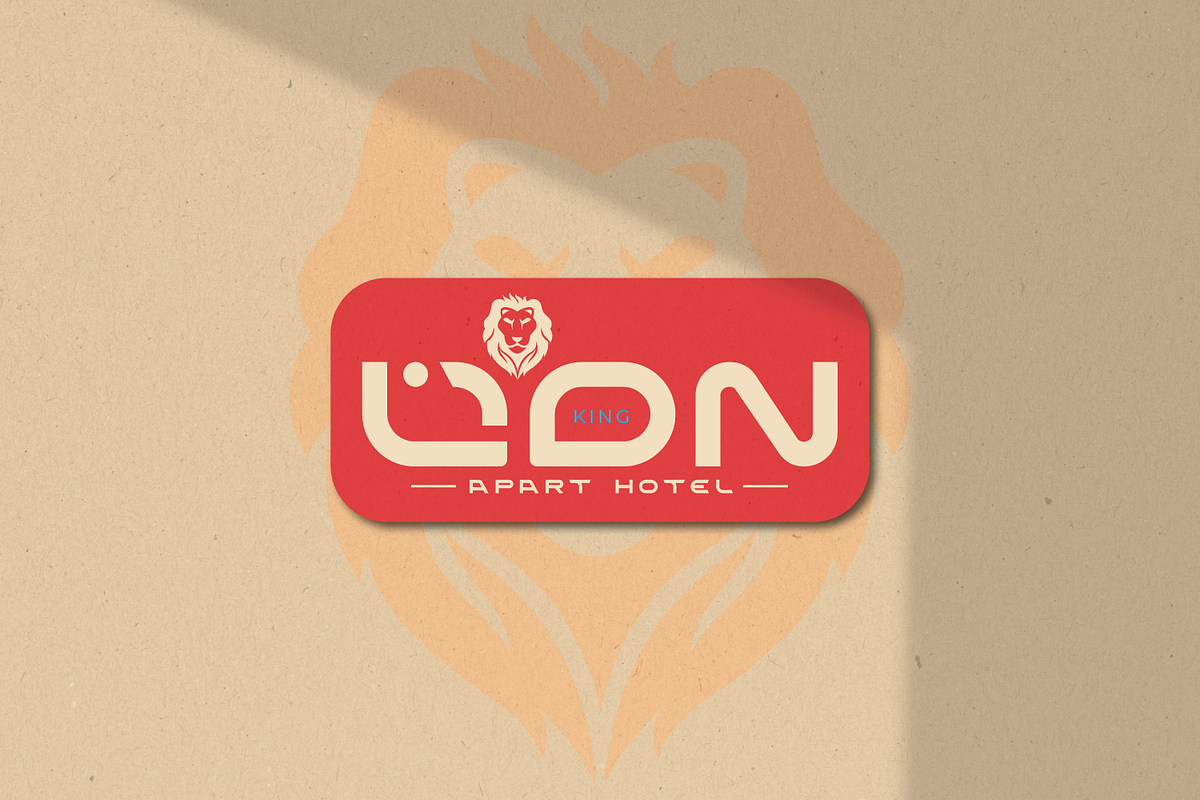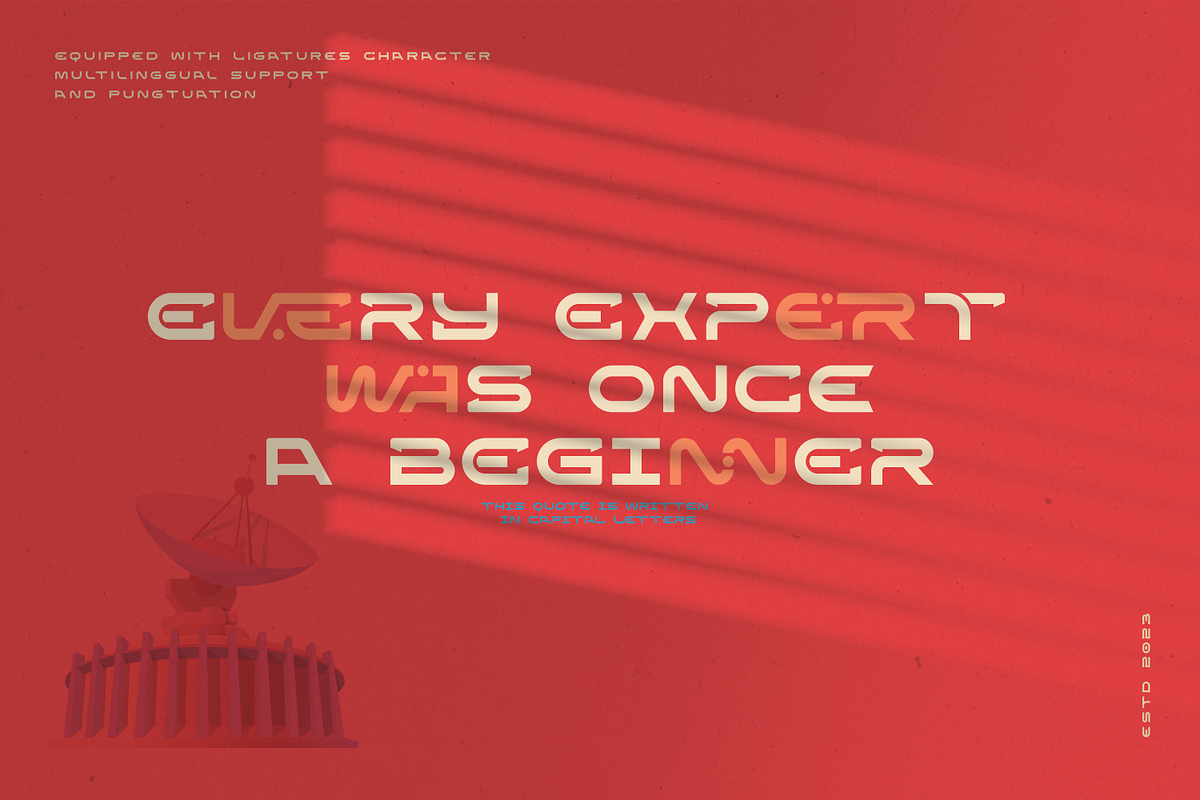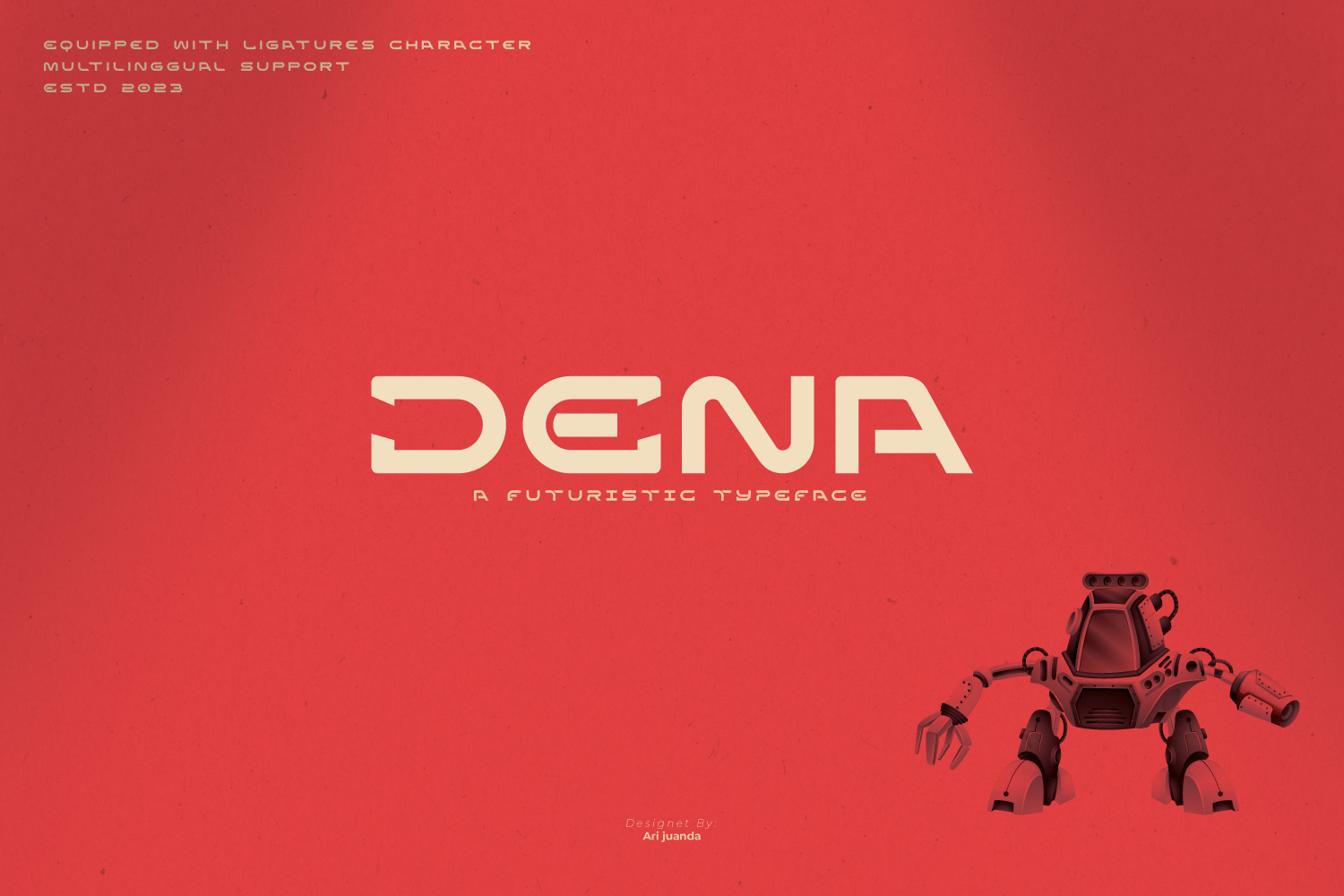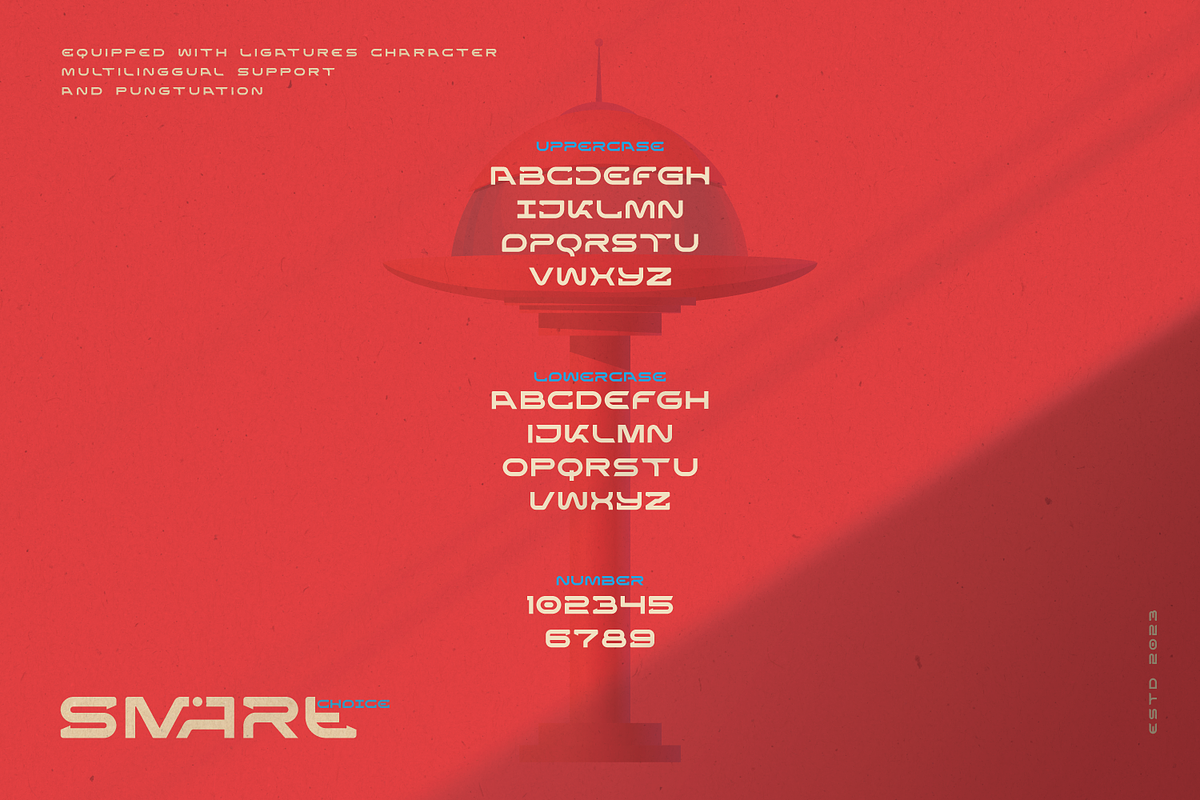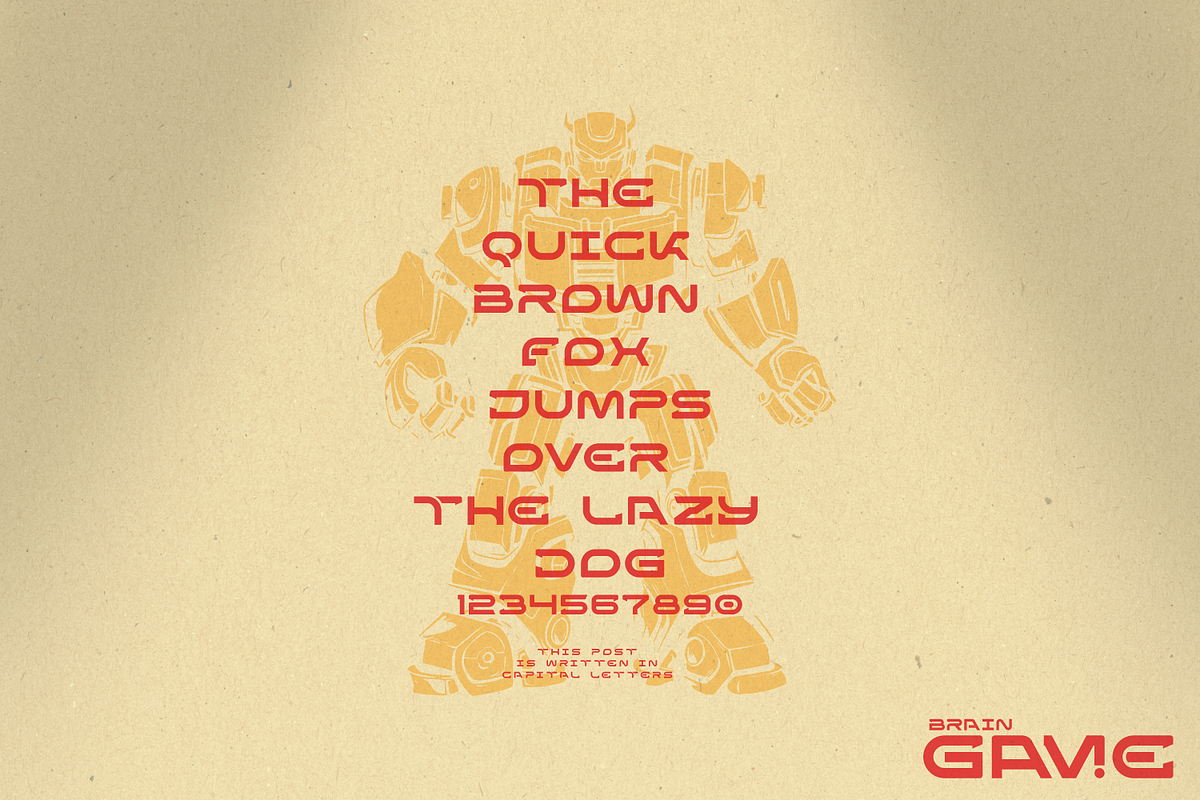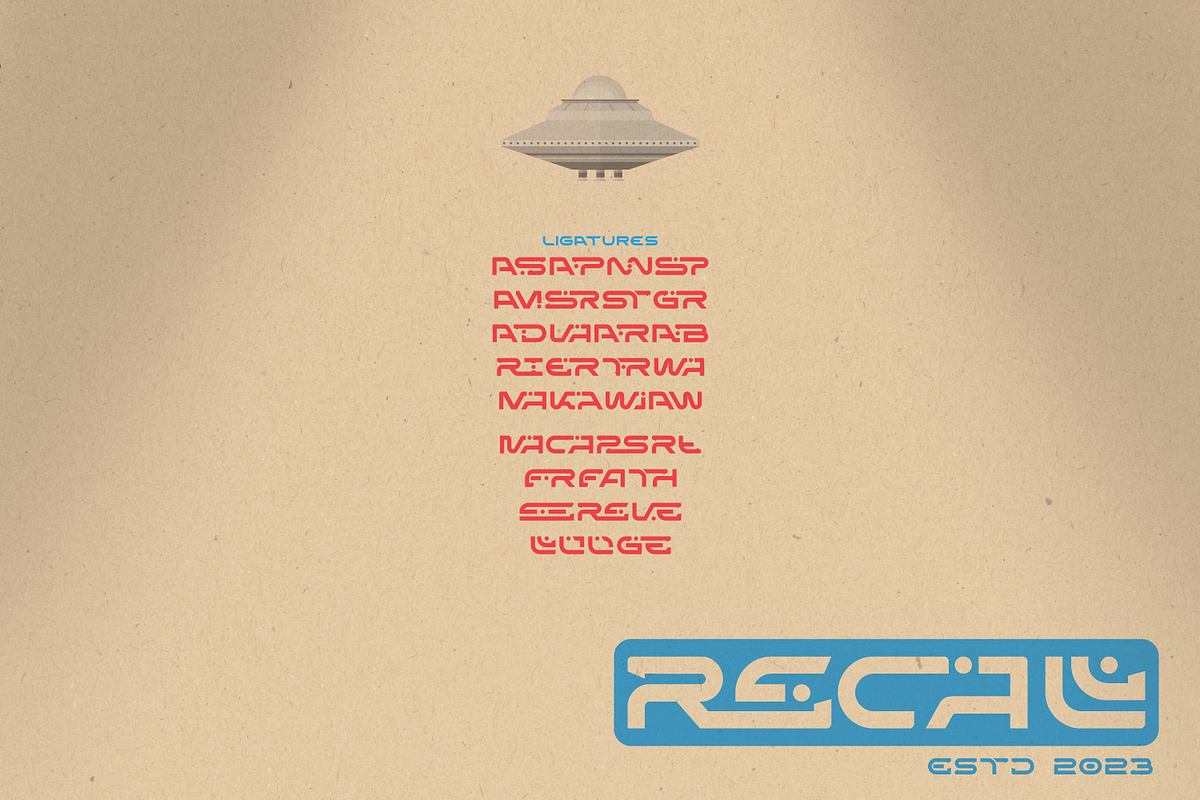
Dena A Futuristic Typeface
Introducing Dena Font, a futuristic typography that melds together future aesthetics and modern design. Designed for the cutting-edge designer, Dena Font is more than simply a font style—it's a design language, a symbol of sophisticated beauty inspired by cyberculture, sci-fi movies, and innovative video games.
A tool that allows designers to modify the visual world and push the boundaries of creativity is Dena Font. With Dena Font's futuristic appeal that blends creativity with typography, you may elevate your creations.
Every letterform in Dena Font has a vibrant, futuristic feel to it. The deftly drawn characters blend together to create a visual rhythm that mirrors the quick-paced, constantly-changing nature of contemporary design.
Modern Futuristic style: Dena Font is leading the way in modern design with her futuristic flair. Because each curve and contour is deliberately constructed to portray a sense of innovation and advancement, it is the ideal choice for forward-thinking design projects.
Ligature-Enhanced Creativity: The extensive ligature set of Dena Font allows designers to effortlessly blend characters to produce a melodious and flowing typographic statement. These exquisite and artistic ligatures add a sophisticated touch to your designs and are perfect for developing unique types of logos and brand identities.
Overcoming linguistic challenges, Dena Font offers a wealth of support for the character set of Latin Western Europe. This ensures effective communication across linguistic environments, turning your creative idea into a versatile tool for worldwide design projects.